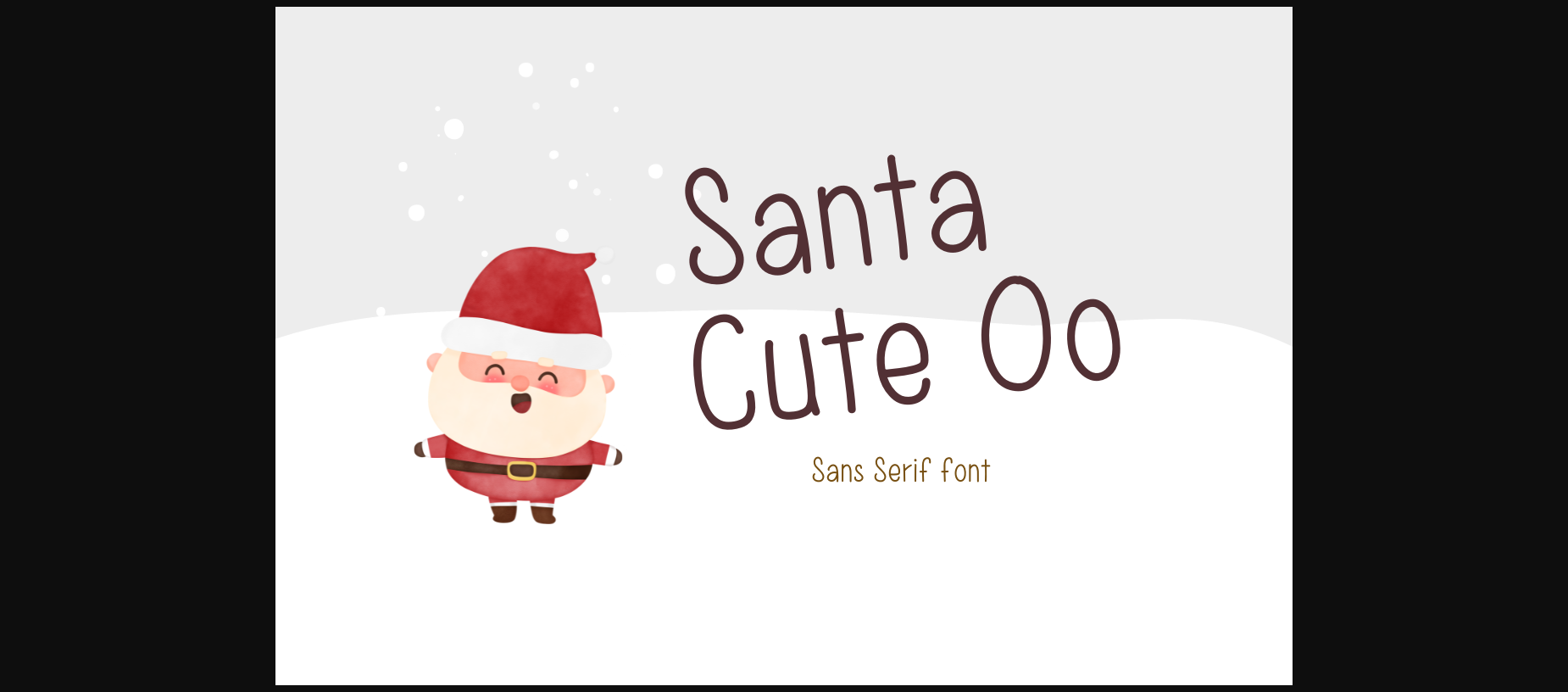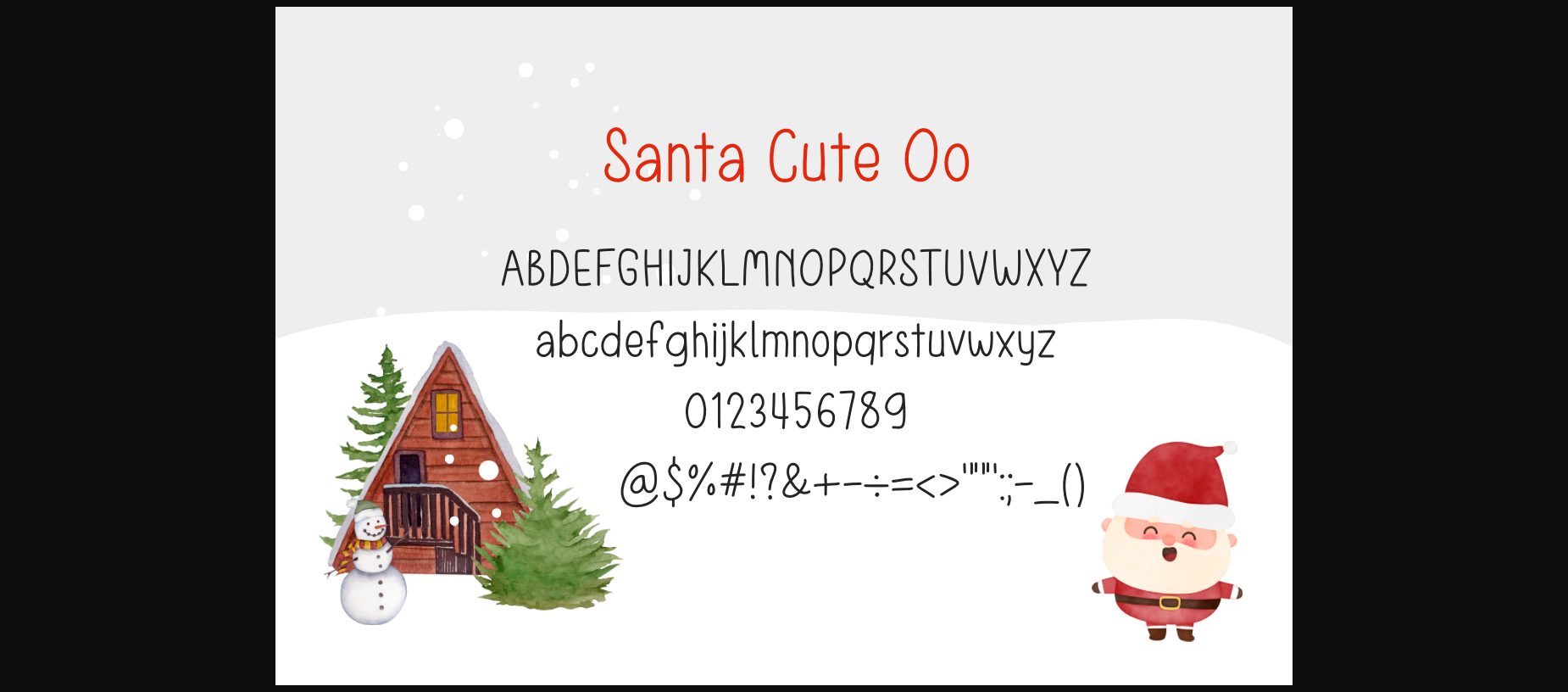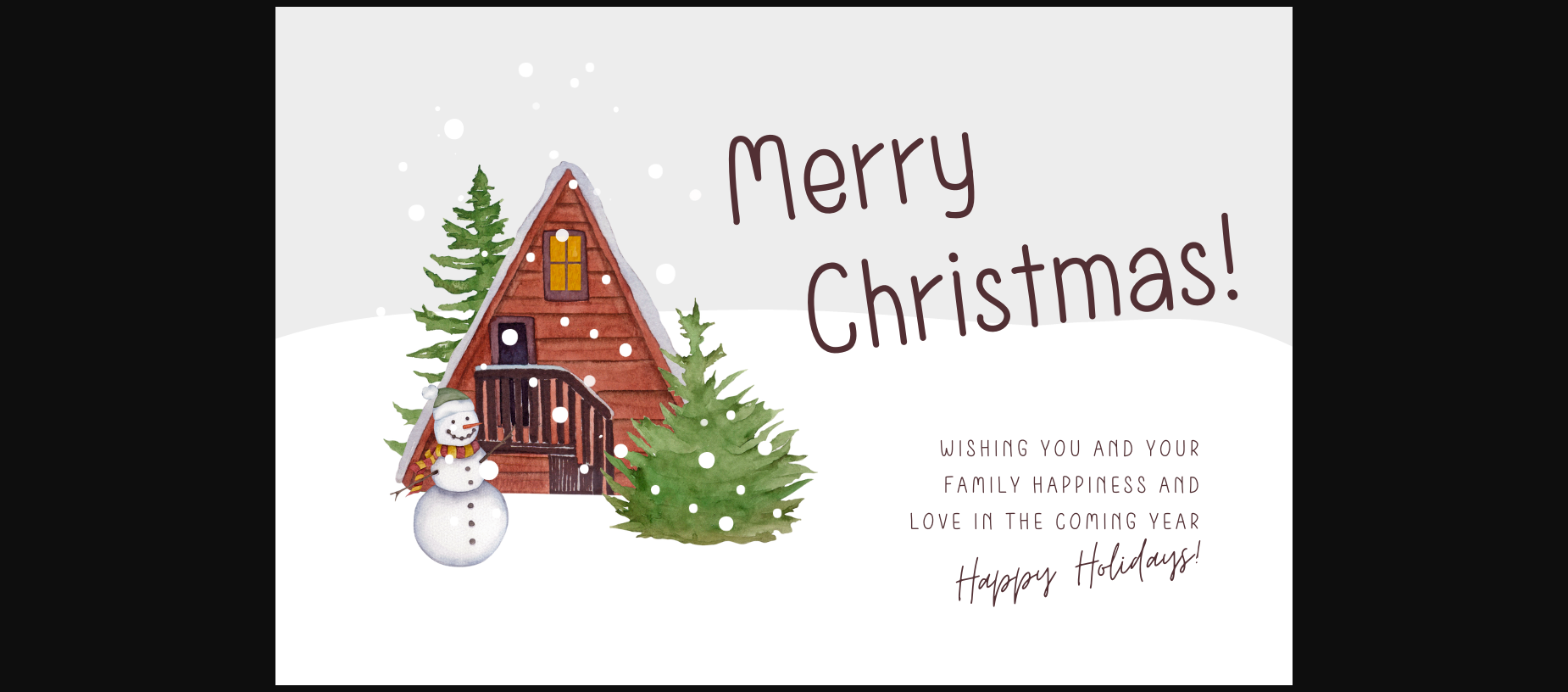
About Santa Cute Oo Font
Santa Cute Oo is a cute, minimal and neat sans serif font. It is an excellent addition to awesome your fun projects and creative designs.